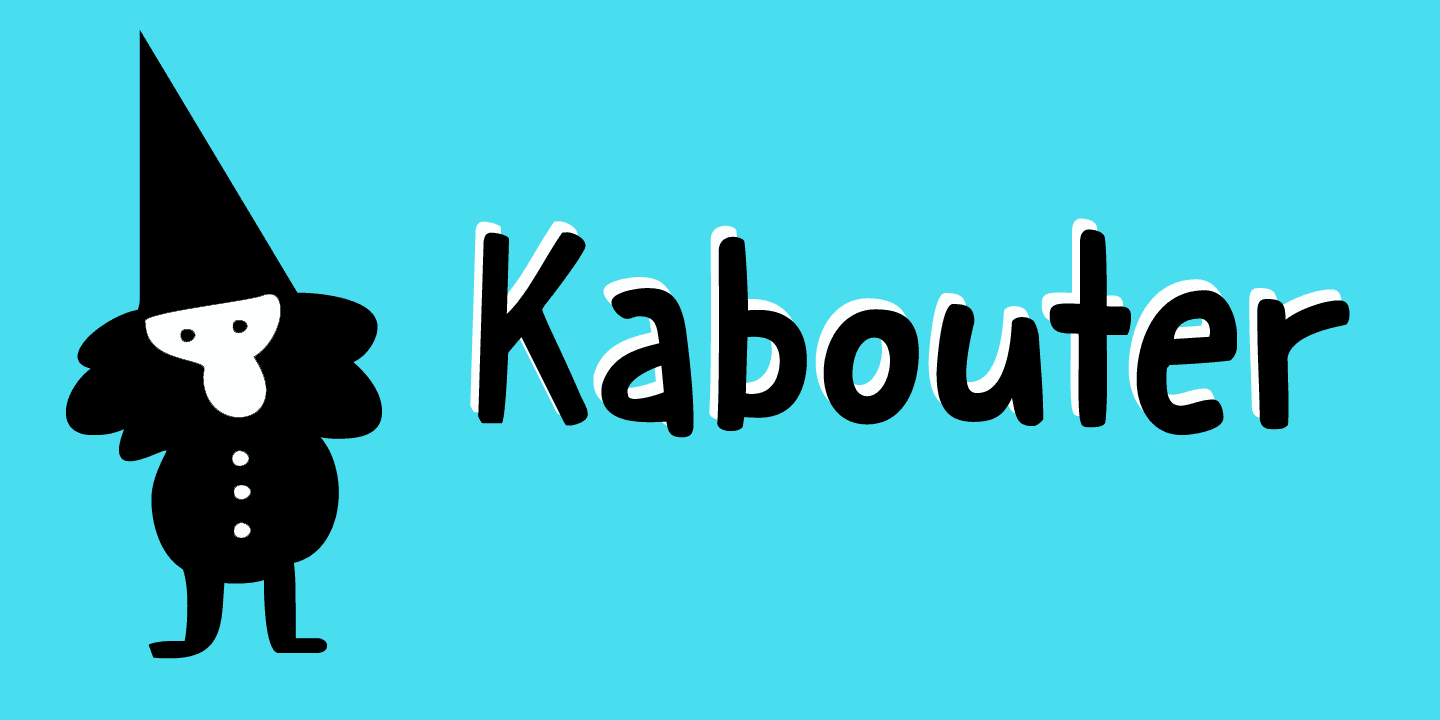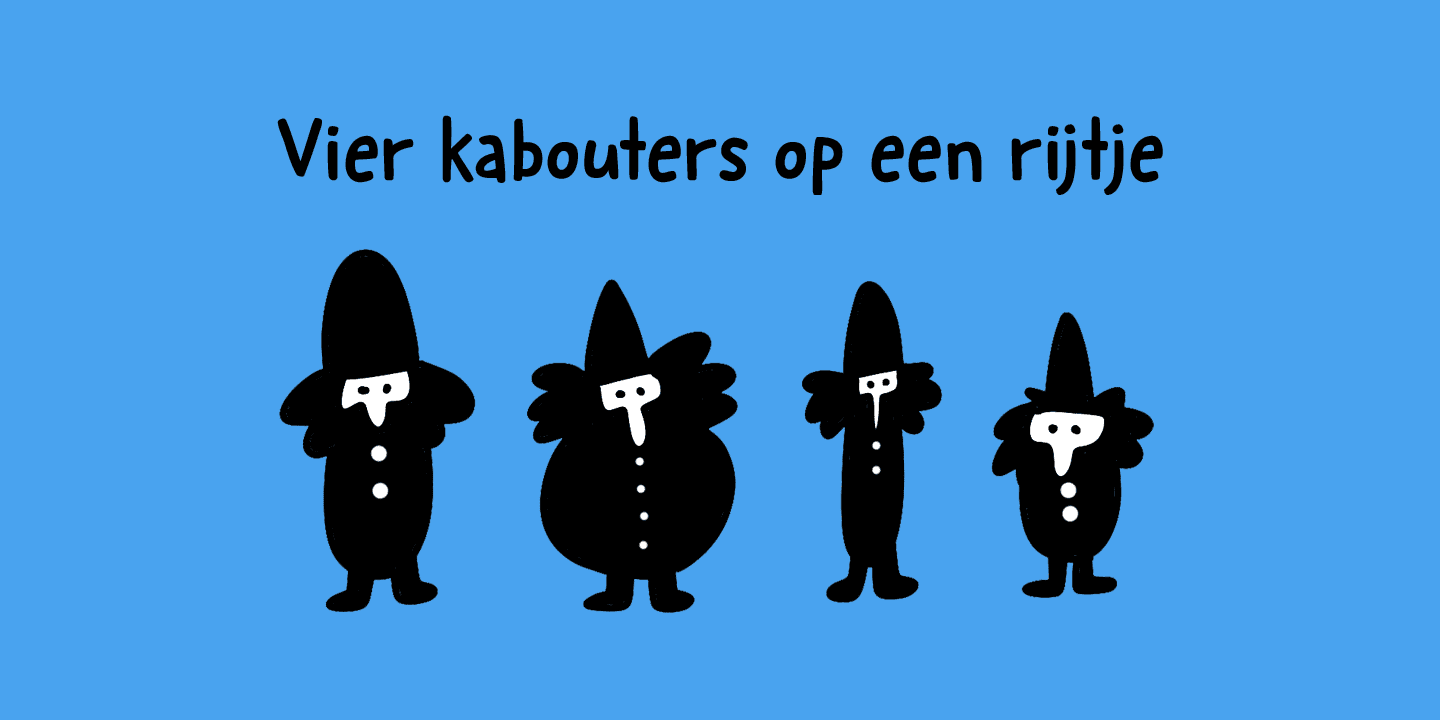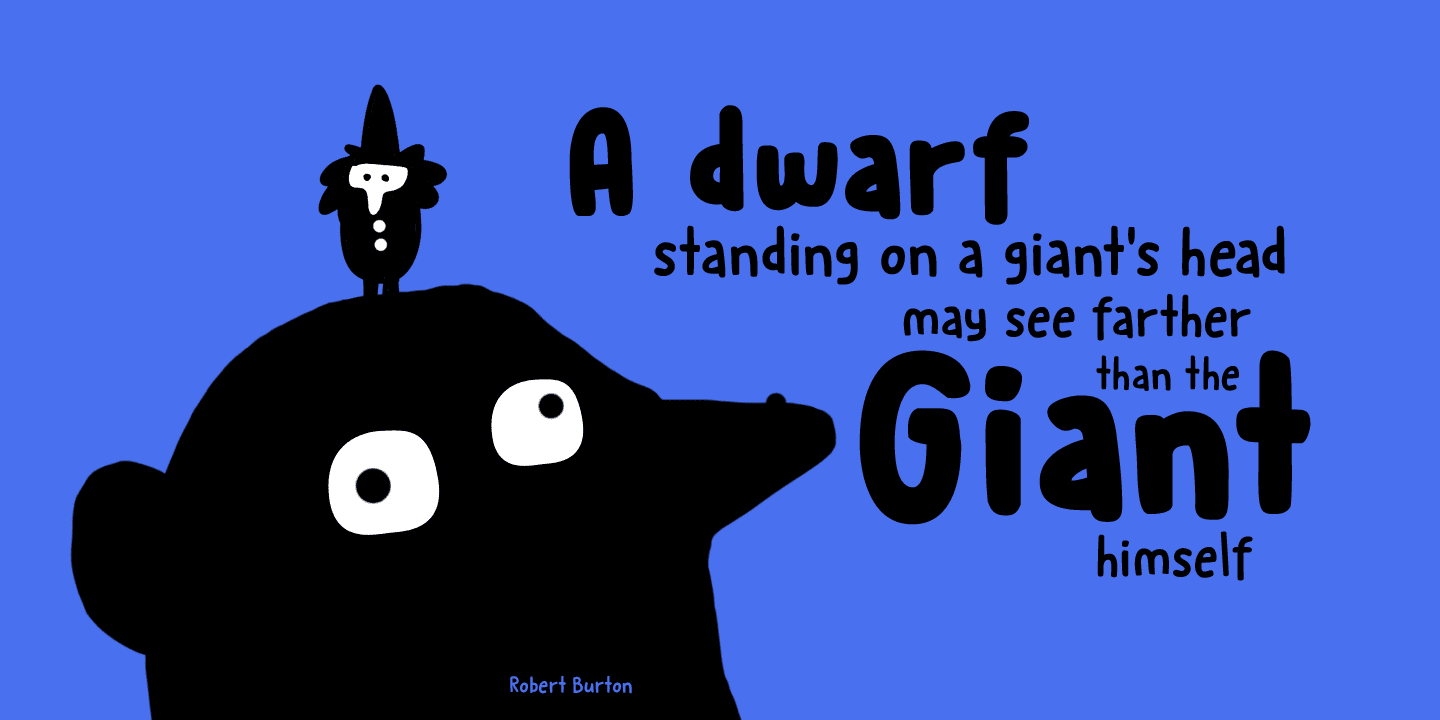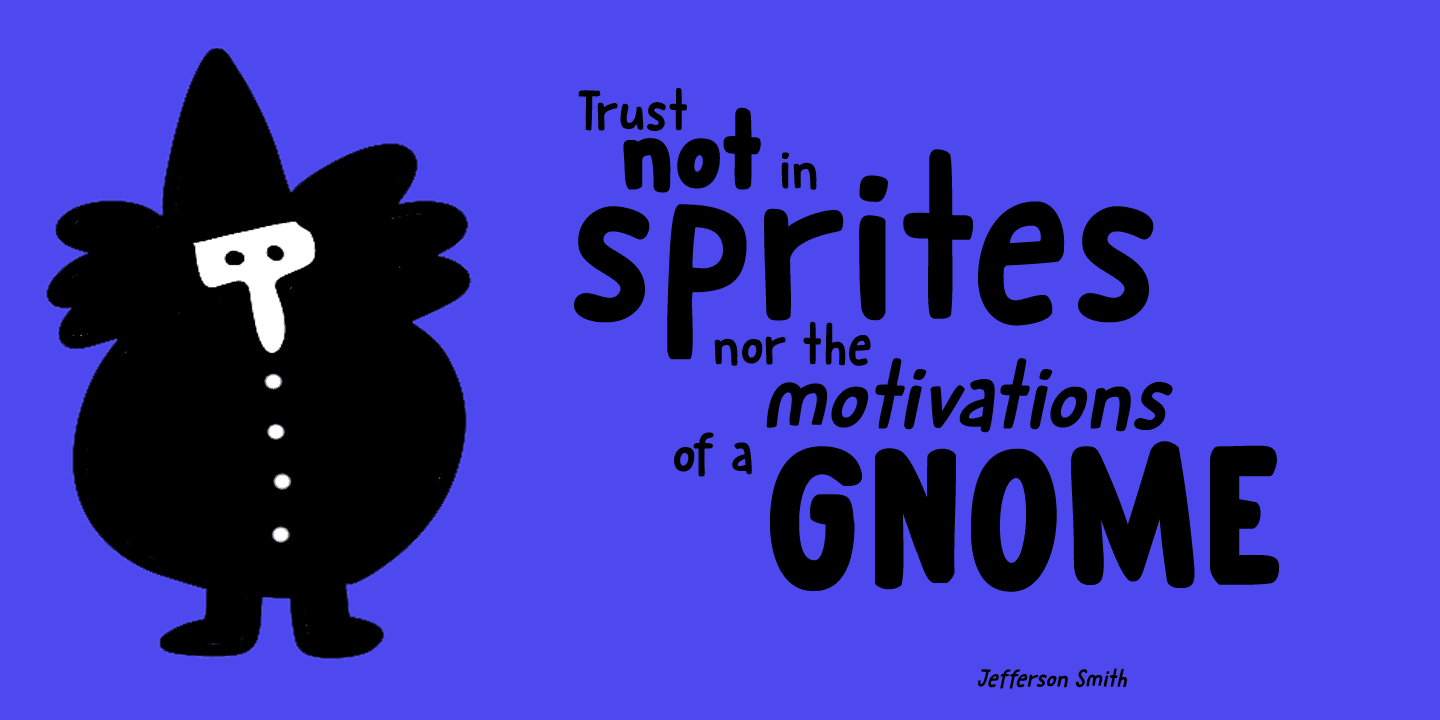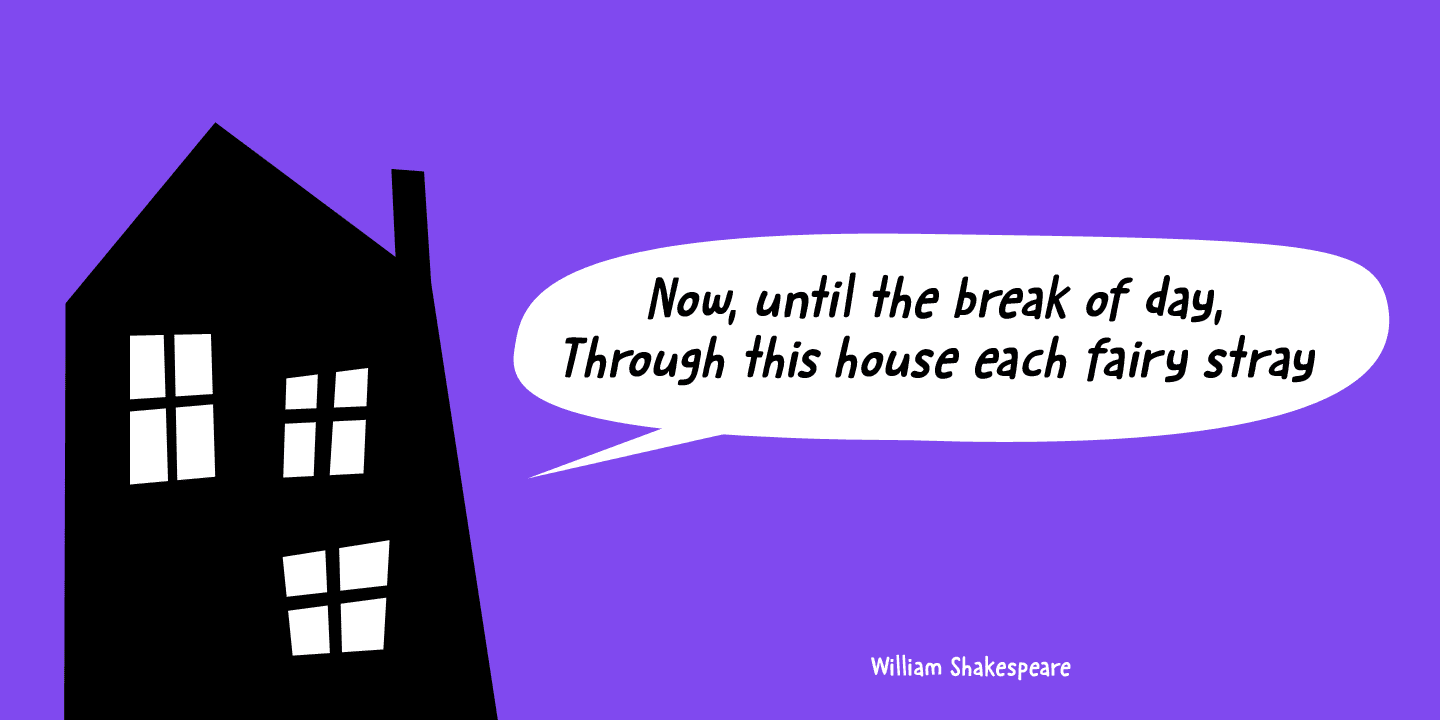
Kabouter is a happy display font. It is fun, bouncy and quirky. Use it for your book covers, toy-packaging and home made apple sauce labels. Besides that, you now know how to say gnome in Dutch, which will leave your friends astounded! ;-)